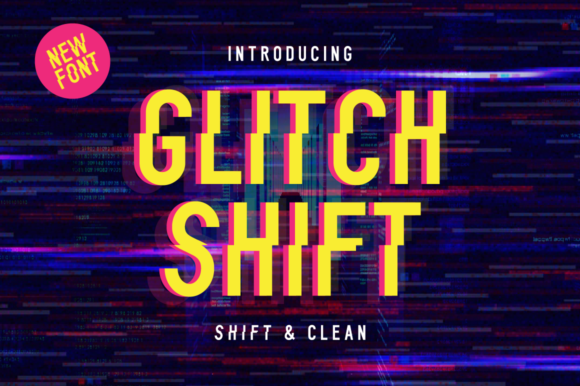
The Perfect Glitch for Your Next Project
Have you ever stared at a blank canvas, desperate for inspiration to strike? You’ve got a vision, but it’s just not coming together. Then, suddenly, it hits you – the perfect font to elevate your design from bland to grand. For designers looking to add a touch of digital magic to their work, I’m here to introduce you to the Glitch Shift Font.
This all-caps display font is a game-changer, offering not one, but two unique styles to suit your creative needs. With its clean and glitched versions, you’ll be able to add a touch of authenticity to your games, movies, flyers, posters, and more. Whether you’re a seasoned pro or just starting out, the Glitch Shift Font is an invaluable tool to have in your design arsenal.
Glitch Shift Font Key Features
- Font Family: Glitch Shift Font is a unique digital font designed to mimic the aesthetic of glitch art, with a focus on distressed and distorted letterforms.
- Size: The font is available in a single weight, with a character set that includes uppercase and lowercase letters, numerals, and punctuation marks.
- Unique Characteristics: The font’s distressed and distorted letterforms are created using a combination of glitch art techniques and digital manipulation, resulting in a truly one-of-a-kind aesthetic.
Glitch Shift Font Review
I recently had the chance to work with the “Glitch Shift Font” and I must say, it’s an interesting addition to any design project. ✨ The font’s distressed, glitch-inspired aesthetic can add a touch of edginess to digital art, graphics, or even web design. I appreciate how it can create a sense of tension and visual interest.
- ✨ Unique and eye-catching design: The font’s glitchy aesthetic is sure to grab attention and add some personality to your design.
- ✨ Versatile: Glitch Shift Font can be used in a variety of contexts, from digital art to web design, and even print materials.
- ✨ Highly customizable: The font can be easily modified to fit your specific design needs, with options for color, size, and style.
- ⚠️ Readability: While the font is visually striking, it can be difficult to read, especially in larger blocks of text.
- ⚠️ Limited character set: The font may not include all the characters you need, which can be a problem if you’re working on a complex project.
Overall, I think the “Glitch Shift Font” is a great choice for designers who want to add some visual interest to their projects. Just be aware of the potential limitations and use it judiciously. With the right application, this font can be a real showstopper.
Getting the Most Out of the Glitch Shift Font
For the best results, experiment with different font sizes, colors, and styles to achieve a unique glitch effect.
Use the Glitch Shift Font to add a touch of edginess to your designs, such as in tech-related projects or futuristic themes.
Combine the Glitch Shift Font with other creative elements, such as textures and patterns, to create a truly eye-catching design.